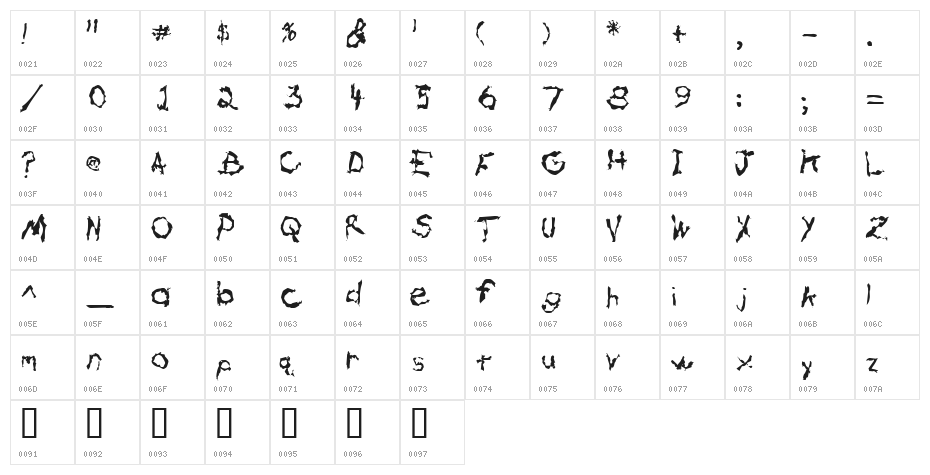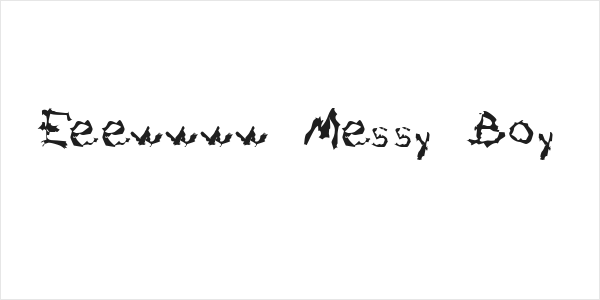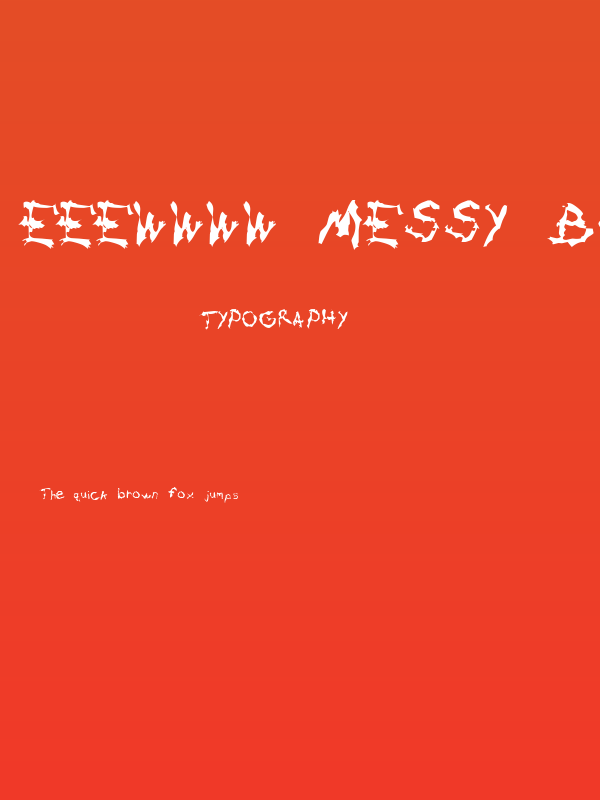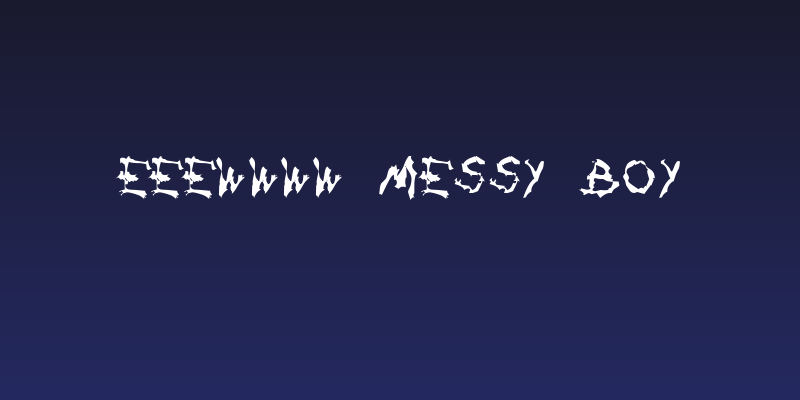
Eeewwww Messy Boy Font
Eeewwww Messy Boy Description
This font features a highly distressed and chaotic appearance, with jagged edges and irregular shapes that give it a raw, edgy feel. The characters are unevenly formed, resembling torn paper or splattered ink, which adds to its grunge aesthetic. The uppercase and lowercase letters maintain a consistent style, while the numbers and special characters follow the same rugged design. This font is visually striking and commands attention, making it suitable for projects that require a bold and unconventional look.
| Overall Style | Grunge, Edgy |
| Use Case | Headlines, Posters, Branding |
| Proposed Projects | Ideal for album covers, horror movie posters, edgy branding, and streetwear designs. |